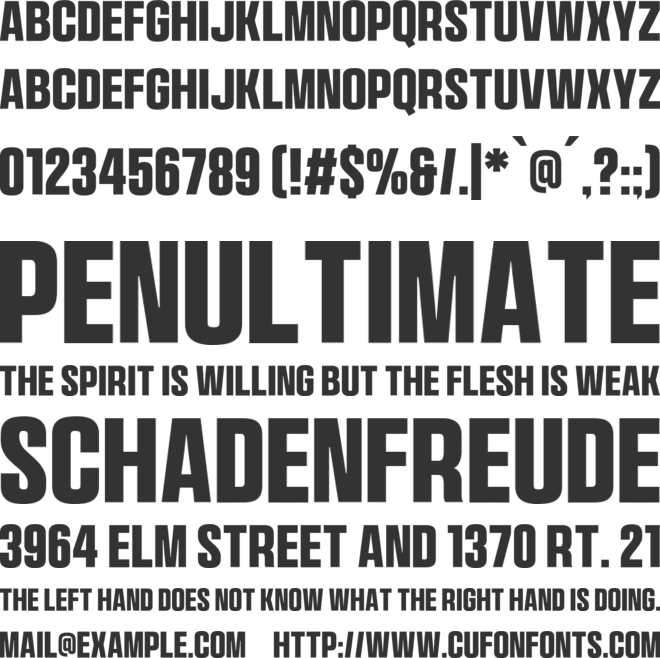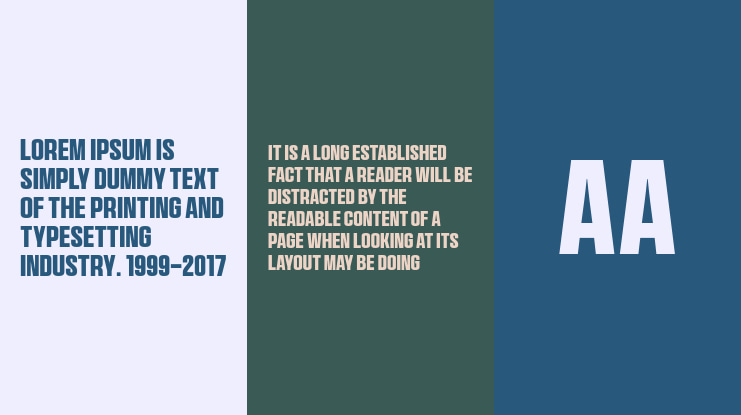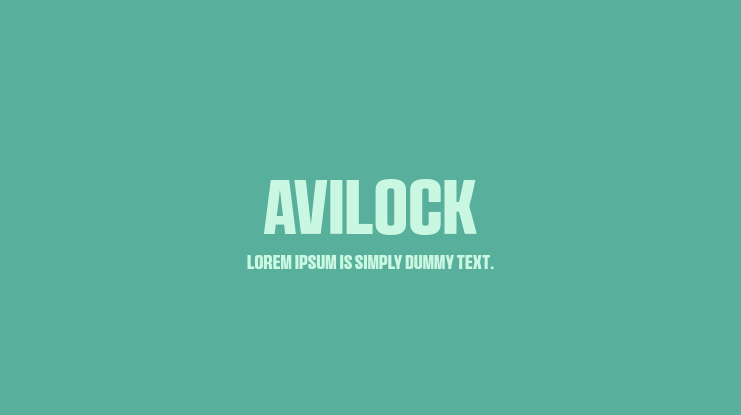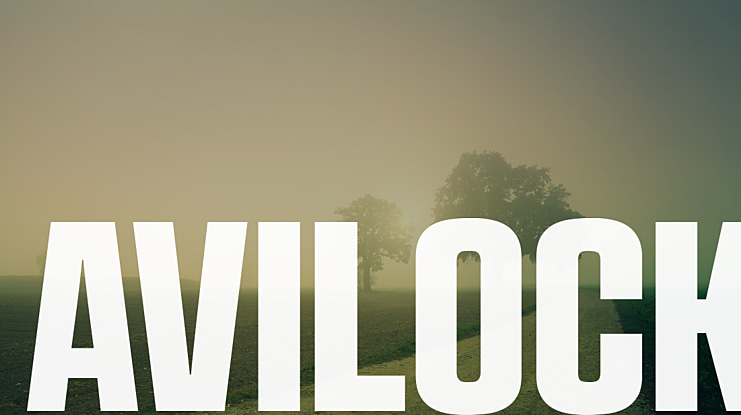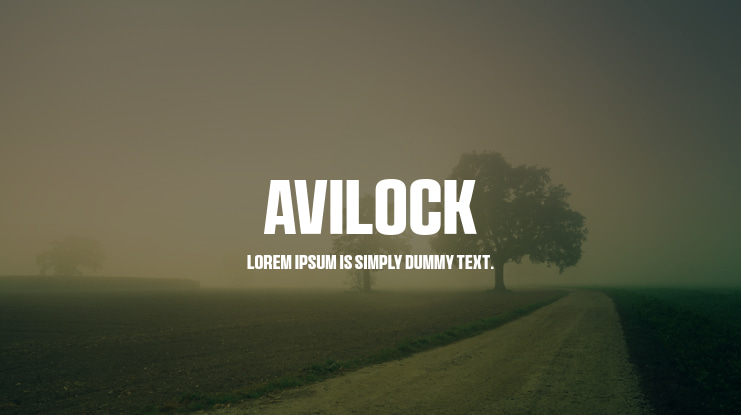
Avilock Font
Avilock is powerful bold display font Perfect for typography purposes that require a strong but subtle identity. Avaialble in all caps character, works great in any branding, logos, magazines and films.